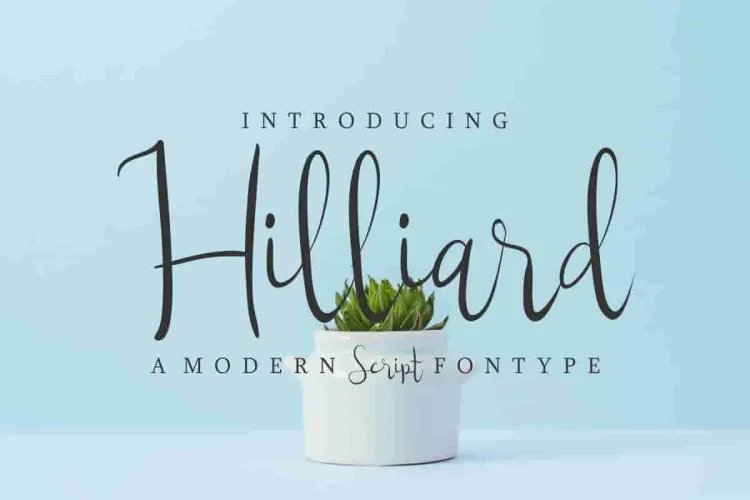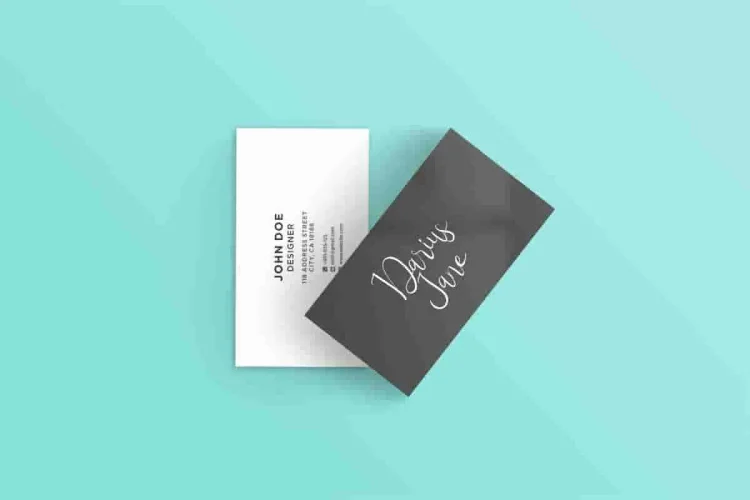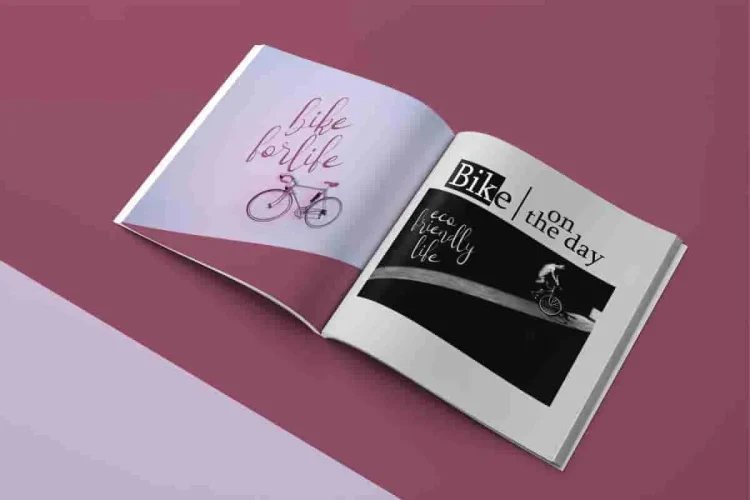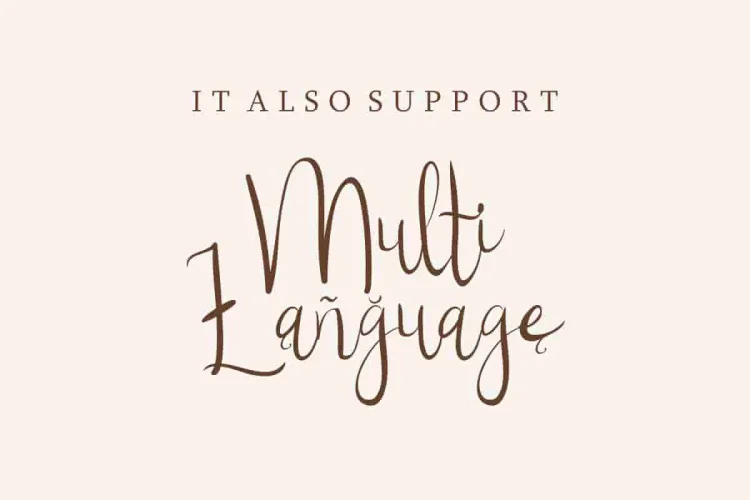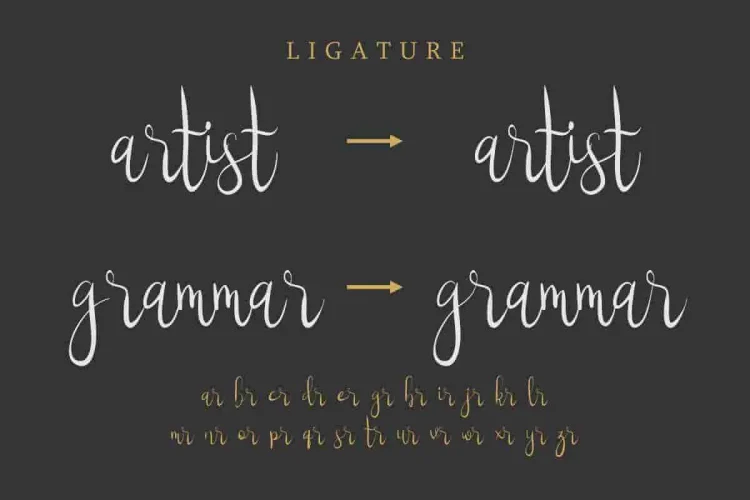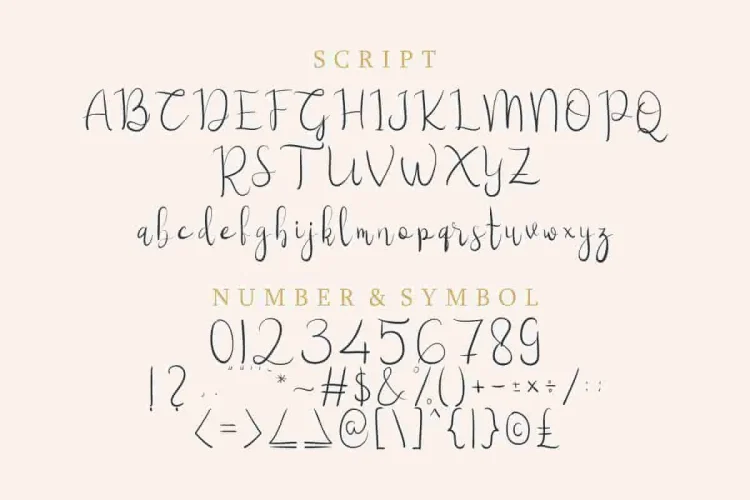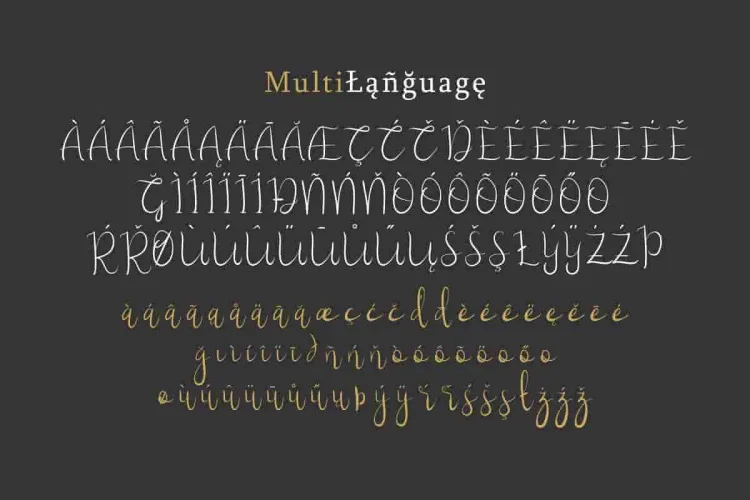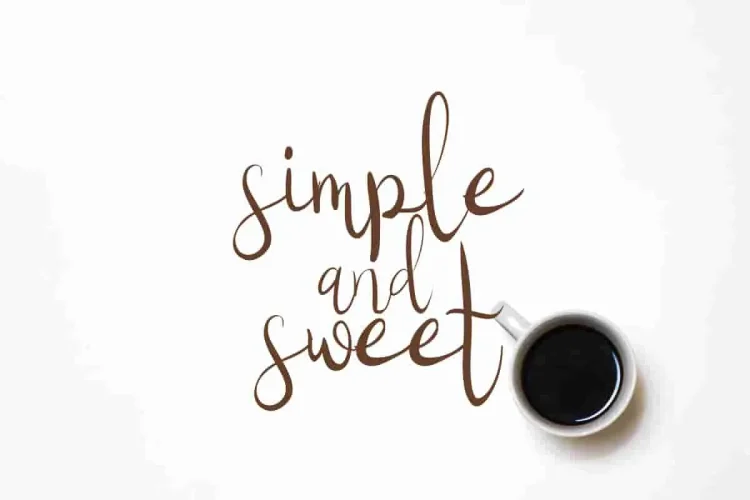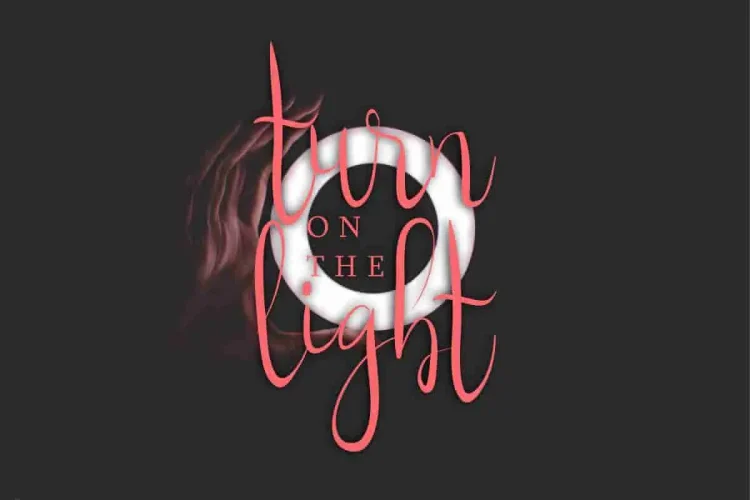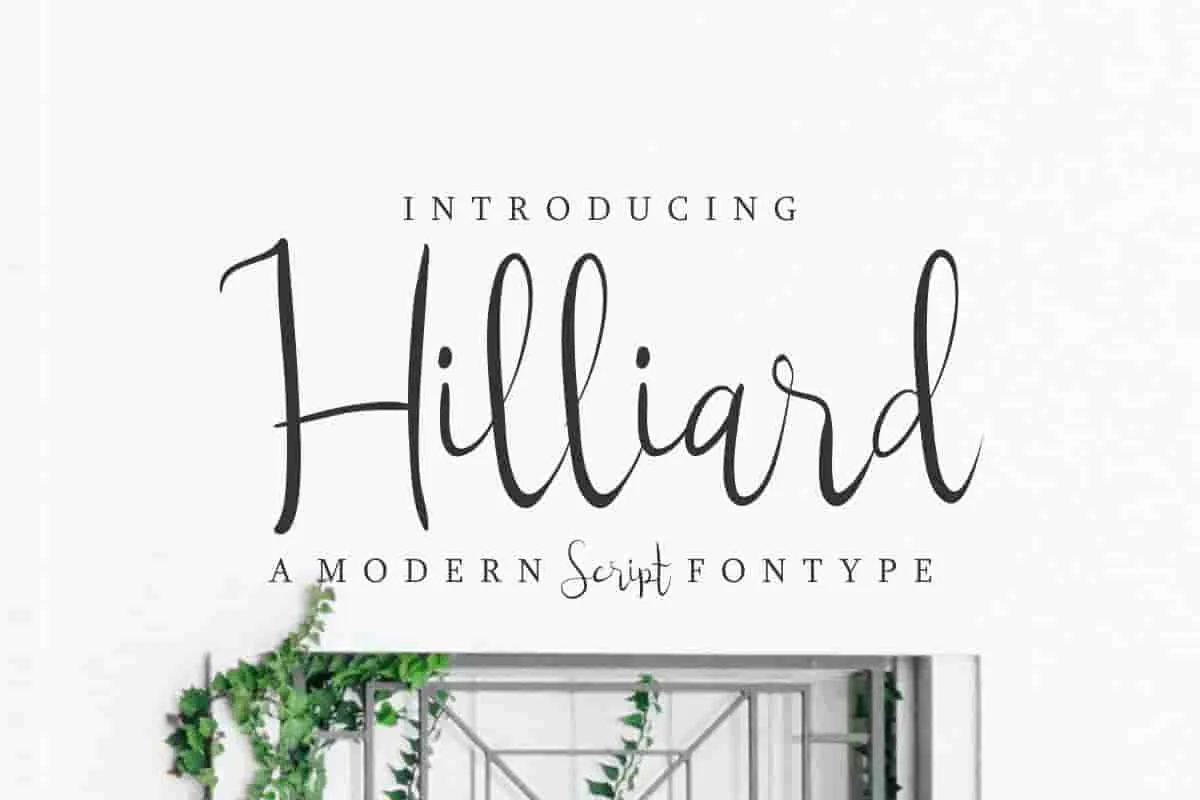
Hilliard Script Typeface Font
Please meet Hilliard, our newest script typeface. This is a new decorative script font with calligraphy style. Not only that, it has a unique, elegant, and stylish glyph. As a result, Hilliard adds that touch of class and sophistication your work deserves.
It is crafted in a modern calligraphy style. This decorative font showcases elegant curves and smooth letterforms. As a result, it feels both personal and refined. Use Hilliard for wedding invites, logos, packaging, or social media. It helps your design feel more personal and beautiful.
Moreover, Hilliard comes with smooth, flowing ligatures—as seen in the previews, character pairs like “tt”, “st”, “ar”, and “gr” are joined with refined, artistic touches. These ligatures bring out the authenticity of hand lettering, creating seamless connections that elevate your typography game.
But there’s more, Hilliard is more than just a pretty script. It’s also fully functional and versatile, supporting both uppercase and lowercase letters, punctuation, numbers, and special characters. Even better, it’s multilingual, so you can use it for a wide range of languages and global branding needs.
Looking for something that feels personal, yet professional? Hilliard is exactly that. It blends handwritten charm with modern design trends, making it the ideal font for creatives, entrepreneurs, and designers alike. Whether you’re working on wedding invitations, business cards, thank-you notes, or even Instagram quotes, this font adds a polished, heartfelt touch that connects with your audience. It’s the type of font that doesn’t just look good—it tells a story.